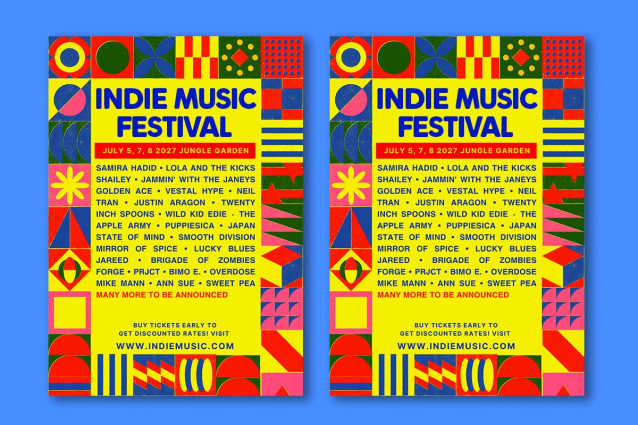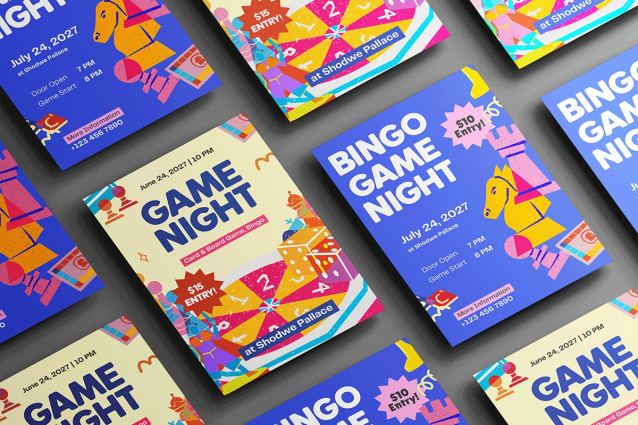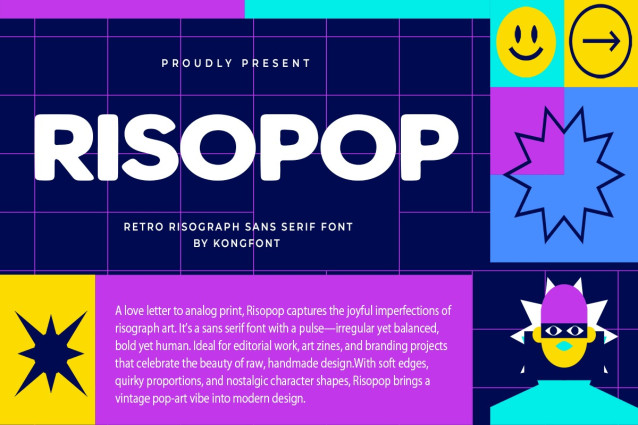
Risopop Font
Risopop Font A Modern Sans Serif Retro Font Part of our Display font collection, Risopop A Modern Sans Serif Retro Font is a classic render of the archetypal old western typeface. With big square blocks at the serif part of the font. The characteristic of this font could also be put inside a slab serif category. Bold and classic, this font invokes a sense of familiarity and nostalgia in its viewers. Not only that, Risopop A Modern Sans Serif Retro Font is a legible display font, meaning that each letter is easily distinguished and this fact makes Risopop A Modern Sans Serif Retro Font, one of the best choices to be put on signage, posters, information board, etc. Combined with vintage colors and an old western theme, this font can help you make your cafes or distros regulars feel as if they were going dining in the 1960s. For a smaller size printing job, this font can also be used for the cover of a cowboy storybook or used in the intro of a western film. Risopop A Modern Sans Serif Retro Font can also be used on small merchandise products from theme-park such as; keychains, refrigerator magnets, and stickers, or you can also print them on items such as t-shirts, jackets, caps, etc. Our collection of Espot & Futuristic fonts is compatible to use as Figma fonts, Canva fonts, Freepik Fonts, and Adobe Fonts]. They also work as Windows Fonts, and Apple Fonts. For your social media needs, you can use and install fonts in our collection of Espot & Futuristic fonts to use as Instagram Fonts, Facebook Fonts, and Twitter Fonts.